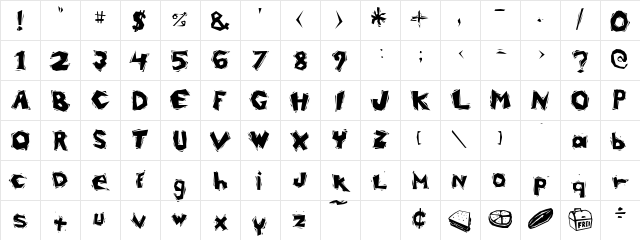
LumberjackFred Regular
Design Context for LumberjackFred
LumberjackFred is a composed and adaptable typeface that performs quietly and consistently across a wide range of design contexts.